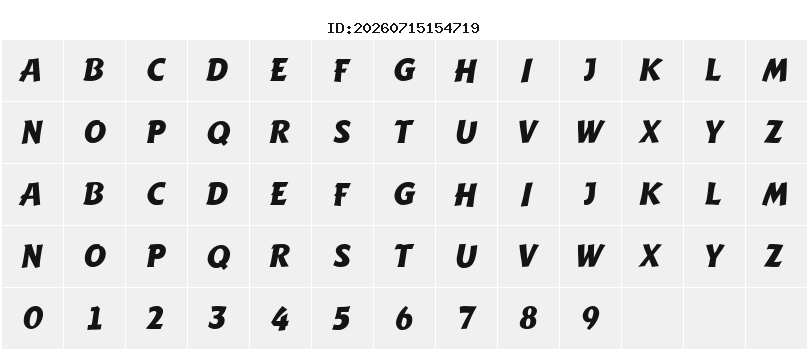
a_Writ Preview
• Font Name: a_Writ
• Designer: W.Chufarofsky & M.Slutsker
About a_Writ.ttf
a_Writ.ttf is a modern, elegant sans-serif font designed for ultimate readability and visual harmony. Perfect for branding, headlines, web design, and print materials.